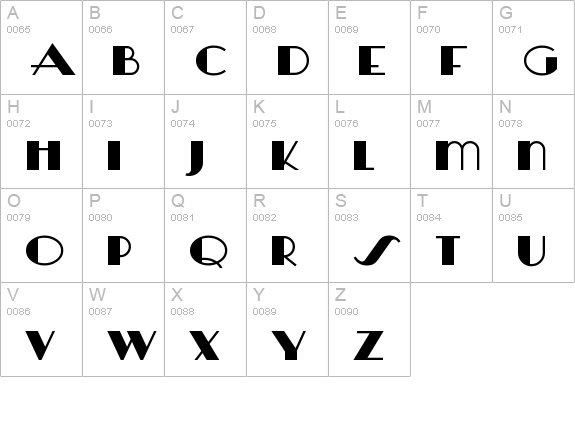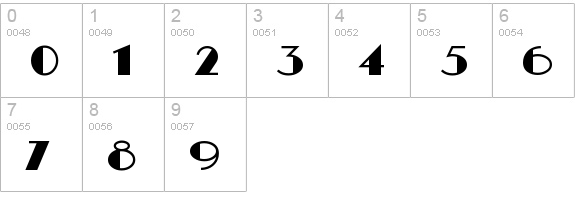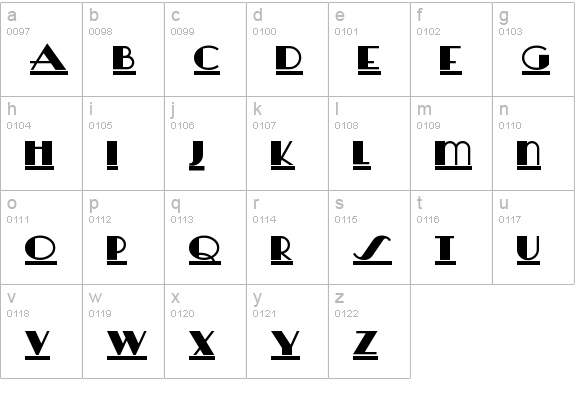
HeraldSquare Font Details
HeraldSquare font is a modern and versatile typeface that exudes elegance and sophistication. With its clean lines and stylish design, this font is perfect for a wide range of projects, from branding to editorial design. Whether you're creating a sleek logo or designing a chic magazine layout, HeraldSquare font is sure to make a statement. The best part? HeraldSquare font is completely free to download at FontsMarket.com. That's right, you can elevate your design projects with this stunning font without spending a dime. So why wait? Head over to FontsMarket.com today and give your designs a touch of class with HeraldSquare font.